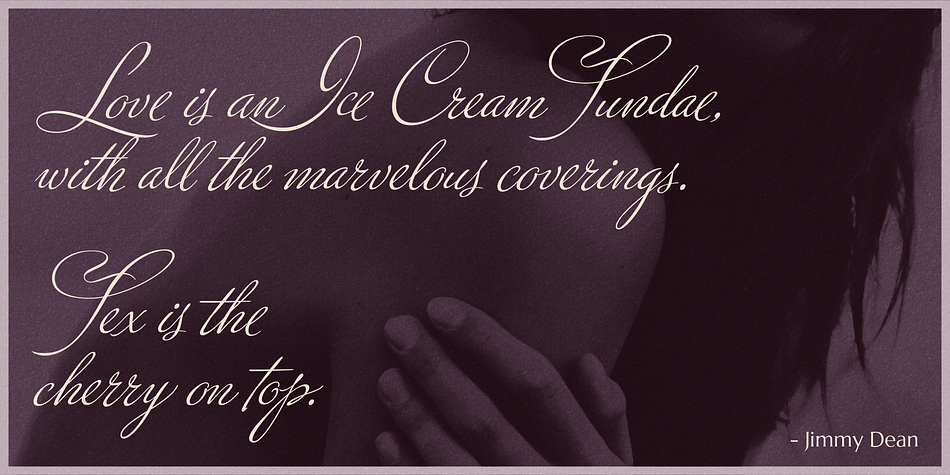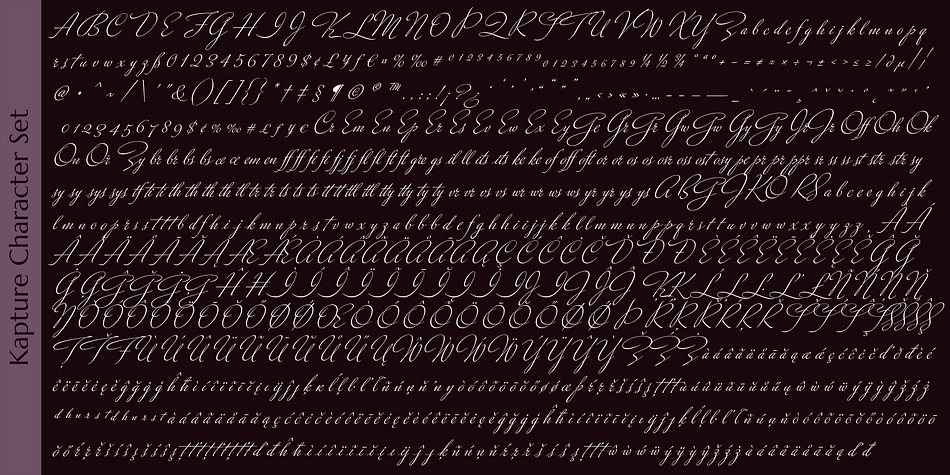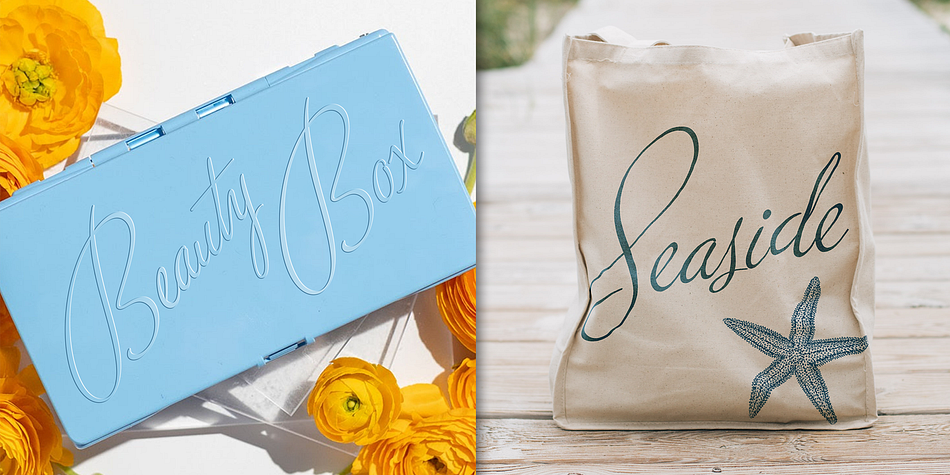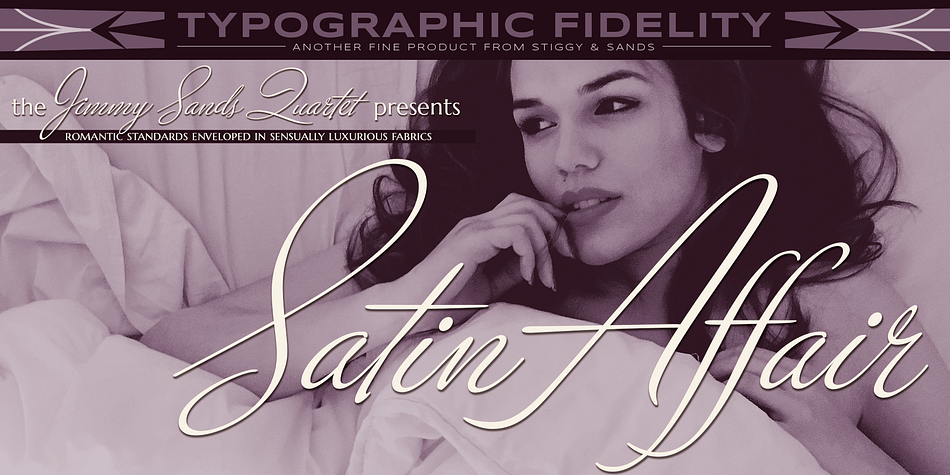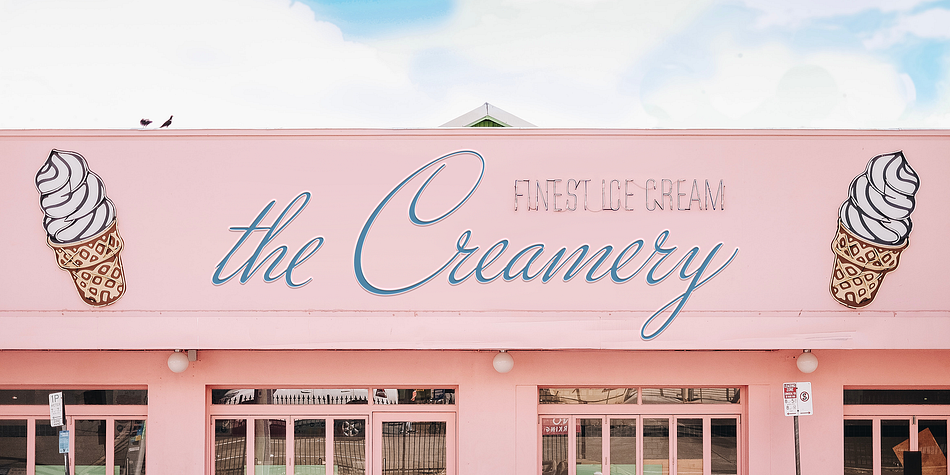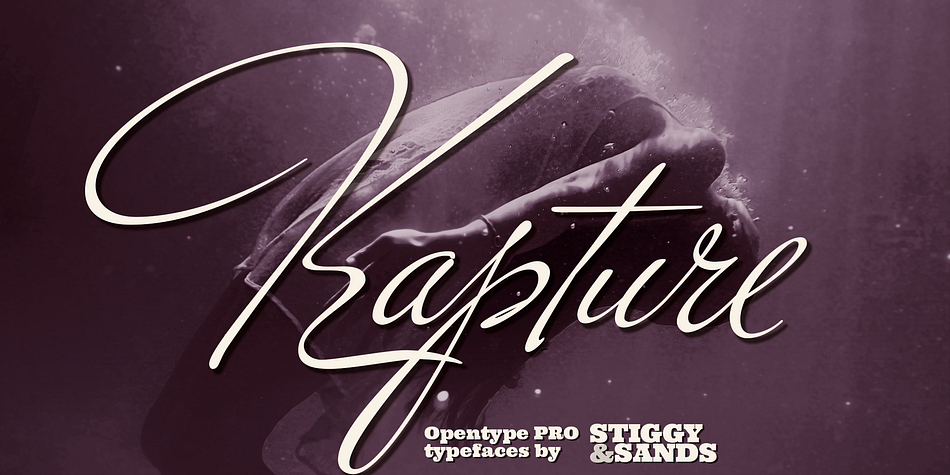
Designed by Brian J. Bonislawsky and Jim Lyles, Kapture is a script font published by Stiggy & Sands.
From its thin weighting to its effortlessly flowing strokes, and a visual rhythm between quick and slow movements, Kapture truly captures a romance in letterforms. There are some script typefaces that truly embody sensuality, and our Kapture typeface is now comfortably amongst that collection.
Elegant, fashionable, sophisticated, sensual, and celebratory all at once. Kapture is a typestyle that finds itself at home in any design where a refined yet modern script is required.
Opentype features include:
- Stylistic Alternates for a collection of alternate Capitals
- Contextual Alternates for some initial and final forms
- A small collection of flourish ornaments
- Full set of Inferiors and Superiors for limitless fractions
- Proportional and Oldstyle figure sets